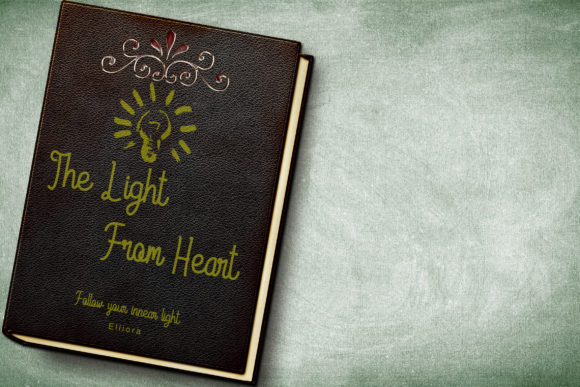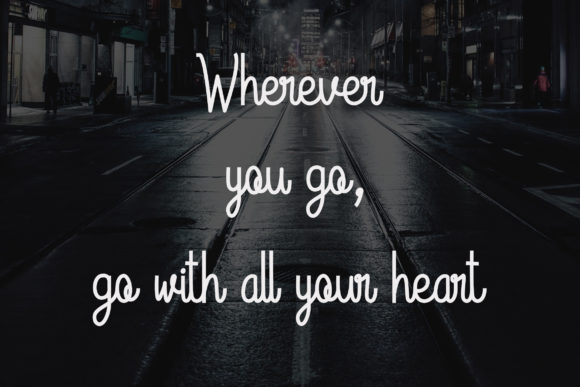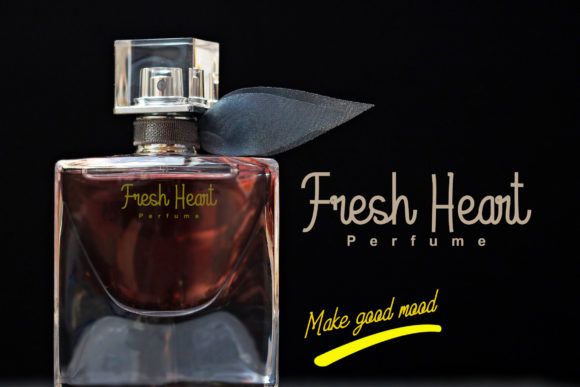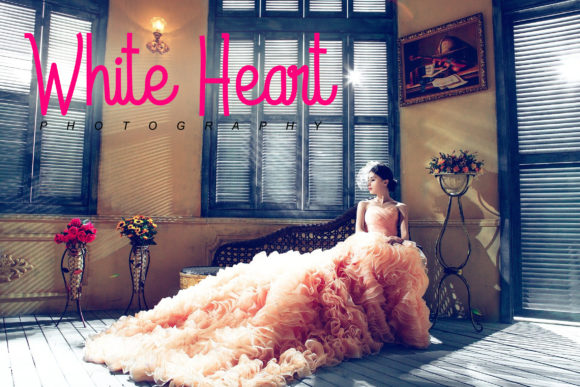
The Elliora Font: A Handcrafted Gem for Creative Projects
Have you ever been in the middle of a design project, and suddenly, you’re stuck on finding the perfect font? I recall a particularly frustrating experience when a client’s request for a “friendly yet bold” font had me scouring the internet for hours. That’s when I stumbled upon Elliora, a beautiful script font that quickly became my go-to. In this article, I’ll share my love for Elliora, its features, and how to make the most of it in your creative projects.
An Honest Review of Elliora
Elliora is a bold script font that’s been carefully handcrafted to become a true favorite among designers. Here’s what I love about it:
- ✨ Casual charm: Elliora has a wonderfully down-to-earth feel that makes it relatable and approachable.
- ✅ Readability: Despite its bold nature, Elliora remains highly readable, even on busy backgrounds.
- ✅ Versatility: This font can be used in a variety of contexts, from standalone headlines to body text.
While Elliora is an excellent font, it’s not without its quirks:
- 🤔 Limited formal settings: Elliora’s casual nature might not make it the best fit for formal or corporate projects.
- ⚠️ Occasional kerning issues: As with any font, you might encounter some kerning issues, especially when using it in combination with other fonts.
The Backstory of Elliora
According to its creators, Elliora was designed to capture the essence of a carefree, artistic spirit. The font’s handcrafted nature and casual charm make it perfect for designers who want to add a personal touch to their work.
Q: What type of projects is Elliora best suited for?
A: Elliora is versatile and can be used in a variety of projects, from creative blogs and social media graphics to posters and flyers.
Q: Is Elliora suitable for body text?
A: While Elliora is a beautiful font, its bold nature makes it more suitable for headlines and titles. However, it can be used for body text in certain contexts, such as in a blog or article where a friendly tone is desired.